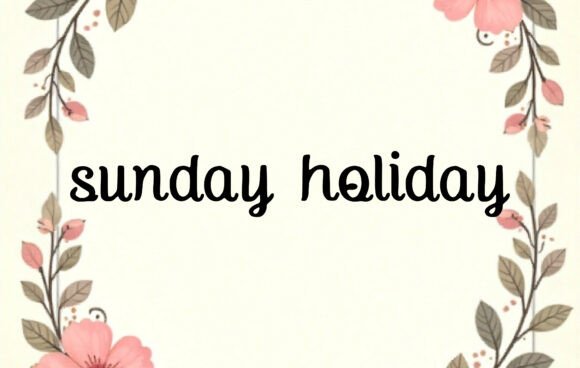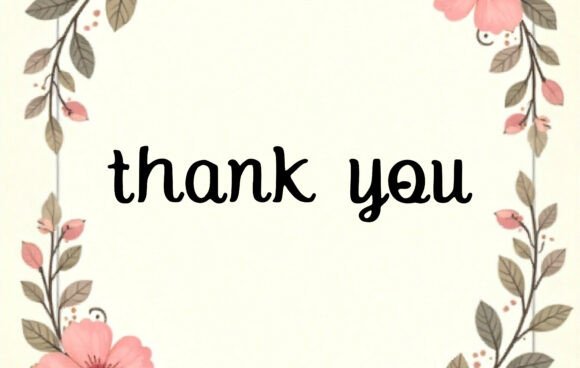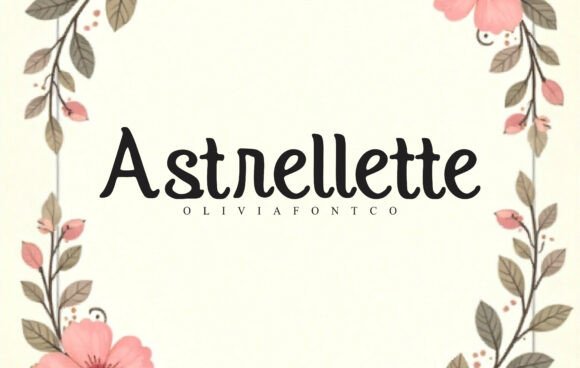
Introducing Astrellette Font: The Epitome of Elegance and Sophistication
In the realm of typography, few fonts manage to capture the essence of elegance and sophistication as effortlessly as Astrellette. This handcrafted script font is a masterclass in blending soft, vintage curves with charming simplicity, making it an ideal choice for designers and crafters looking to infuse their projects with a touch of nostalgia and warmth.
The Characteristics of Astrellette Font
At its core, Astrellette is designed to evoke a sense of playfulness and femininity. Its characters are meticulously crafted to exude a gentle elegance that can elevate any design from mundane to extraordinary. The font’s balanced strokes and consistent rhythm are key to its high readability, ensuring that it remains clear and legible across various platforms and applications.
One of the standout features of Astrellette is its versatility. Whether you’re working on wedding invitations, feminine branding, product labels, or editorial accents, this font seamlessly adapts to fit your design needs. Its soft yet sophisticated vibe makes it a perfect companion for projects that aim to convey a sense of warmth and approachability.
Perfect for Wedding Invitations and Feminine Branding
Wedding invitations and feminine branding are areas where Astrellette truly shines. For wedding invitations, the font’s vintage charm and elegance can add a romantic touch, setting the tone for a memorable and beautiful wedding celebration. In feminine branding, Astrellette helps create a brand identity that is both soft and powerful, appealing to audiences looking for products or services that embody these qualities.
Enhancing Product Labels and Editorial Accents
Beyond its use in wedding invitations and branding, Astrellette also finds its place in product labels and editorial design. For product labels, especially those for beauty, fashion, and lifestyle products, the font adds a touch of sophistication and allure, making the product stand out on crowded shelves. In editorial design, Astrellette can be used to create eye-catching headings and accents that draw readers in, adding a layer of depth and personality to the content.
The Benefits of Using Astrellette Font
The benefits of incorporating Astrellette into your design projects are numerous:
- Unique Aesthetic: Astrellette offers a unique blend of vintage charm and modern simplicity, setting it apart from more traditional fonts.
- High Readability: Its balanced strokes and consistent rhythm ensure that text remains clear and easy to read.
- Versatility: Suitable for a wide range of applications, from digital to print.
- Elegance and Sophistication: Adds a touch of elegance and sophistication to any design.
Astrellette font is a beautiful addition to the world of typography, offering designers and crafters a versatile tool that blends soft, vintage curves with charming simplicity. Its application spans various design projects, from wedding invitations and feminine branding to product labels and editorial accents. With its high readability and unique aesthetic, Astrellette is poised to become a favorite among those looking to infuse their designs with a sense of gentle elegance and sophistication.
Whether you’re a professional designer or a DIY crafter, Astrellette invites you to explore new possibilities in your creative projects. Its ability to convey warmth, nostalgia, and elegance makes it an invaluable asset in your typographic arsenal. Discover the charm of Astrellette and let it guide your designs towards a softer, yet more sophisticated future.